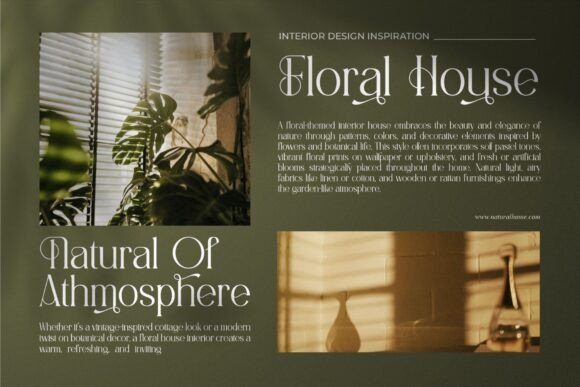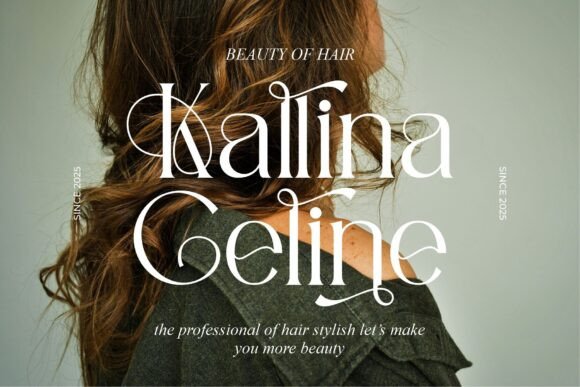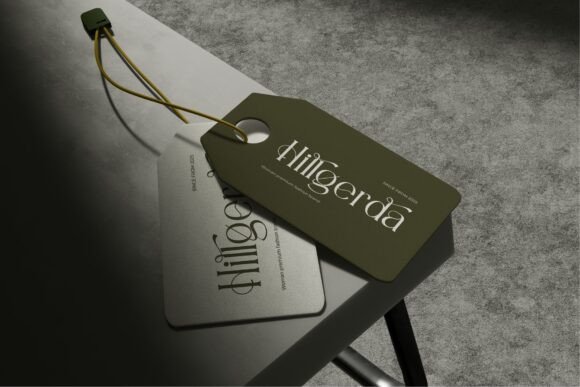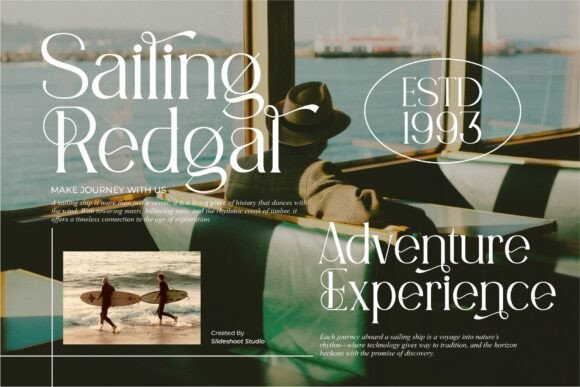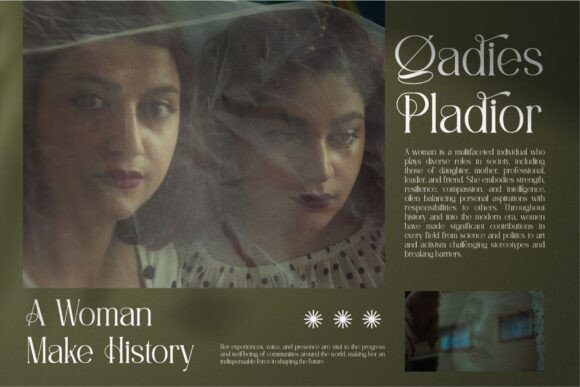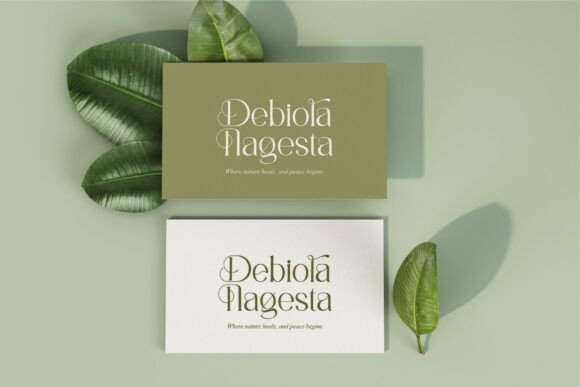
Introducing Billande Font: Elevate Your Design with Luxury and Sophistication
In the world of typography, fonts play a crucial role in conveying the tone and personality of a brand. For designers and crafters looking to add a touch of luxury and modernity to their work, Billande Font is an exceptional choice. This stylish serif font boasts graceful curves, elegant swashes, and refined contrast, making it perfect for branding, editorial design, and fashion-forward logos.
The Characteristics of Billande Font
Billande Font is distinguished by its unique features, which set it apart from other serif fonts. Some of its key characteristics include:
- Delicate Ligatures: Billande Font features delicate ligatures that add a touch of elegance and sophistication to any design.
- Elegant Swashes: The font’s elegant swashes provide a luxurious feel, perfect for creating high-end branding and editorial designs.
- Refined Contrast: The refined contrast between thick and thin lines creates a sense of refinement and poise, making Billande Font ideal for fashion-forward logos and designs.
- Graceful Curves: The font’s graceful curves add a touch of softness and approachability, balancing out the elegance and sophistication of the design.
Perfect for Branding, Editorial Design, and Fashion-Forward Logos
Billande Font is an incredibly versatile font that can be used in a variety of design applications. Its luxurious and modern feel makes it perfect for:
- Branding: Create a lasting impression with Billande Font, ideal for luxury brands, high-end products, and services.
- Editorial Design: Add a touch of sophistication to your editorial designs, such as magazines, newspapers, and books.
- Fashion-Forward Logos: Create stunning logos that exude luxury and modernity, perfect for fashion brands, boutiques, and high-end designers.
Why Choose Billande Font?
With so many fonts available, why choose Billande Font? Here are just a few reasons why designers and crafters are falling in love with this luxurious serif font:
- Unique and Distinctive: Billande Font is a one-of-a-kind font that will set your designs apart from the rest.
- High-End Feel: The font’s luxurious feel and elegant swashes evoke a sense of high-end quality, perfect for luxury brands and designs.
- Modern and Sophisticated: Billande Font is the perfect blend of modernity and sophistication, making it ideal for designers and crafters looking to create stunning designs.
Tips for Using Billande Font
To get the most out of Billande Font, here are a few tips to keep in mind:
- Use it Sparingly: Billande Font is a statement font, so use it sparingly to make a lasting impression.
- Pair it with Neutral Fonts: Pair Billande Font with neutral fonts to create a striking contrast and add visual interest to your design.
- Experiment with Swashes: Don’t be afraid to experiment with the font’s elegant swashes to add a touch of luxury and sophistication to your design.
In conclusion, Billande Font is an exceptional choice for designers and crafters looking to add a touch of luxury and modernity to their work. With its delicate ligatures, elegant swashes, and refined contrast, this stylish serif font is perfect for branding, editorial design, and fashion-forward logos. Whether you’re looking to create a lasting impression or add a touch of sophistication to your design, Billande Font is the perfect choice.